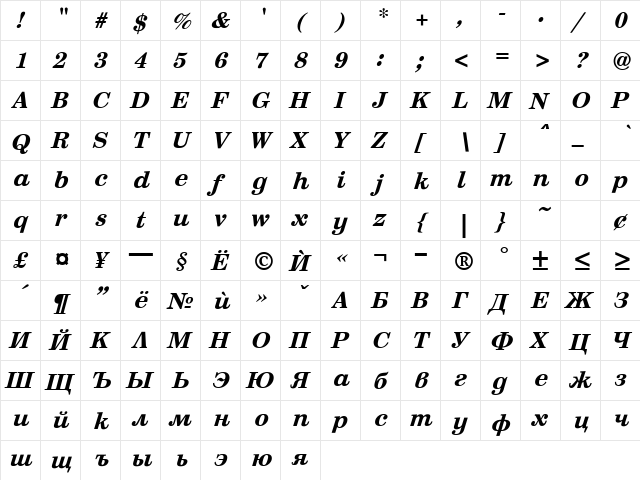
Sentry BoldI talic Font Preview
Sentry BoldI talic
Sentry BoldI talic Font Details
| Style | BoldI talic |
Design Context for Sentry Typeface
Sentry offers clean, dependable letterforms without strong stylistic allegiance, making it a practical choice for designers who need flexibility. The heavy weight commands attention and anchors typographic hierarchies.